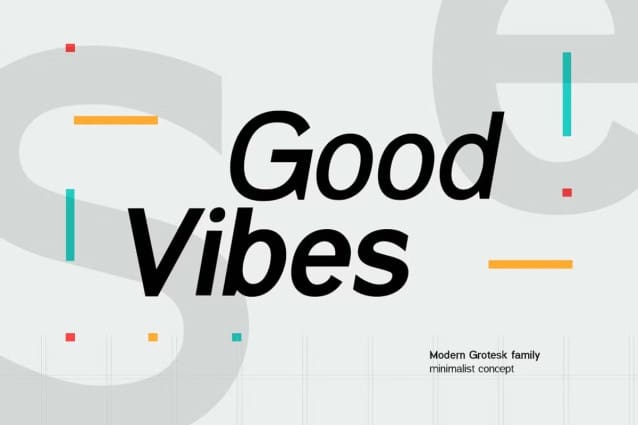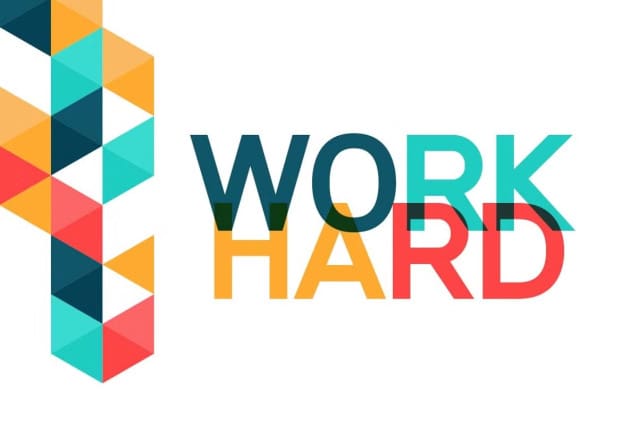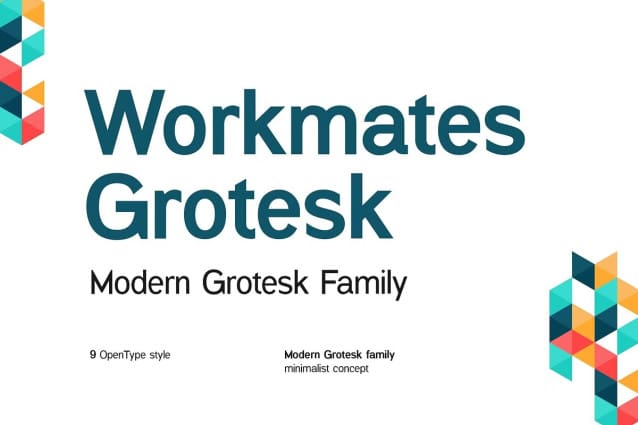
Workmates Grotesk Font Family
Workmates Grotesk Font Family – The modern display font feels beautiful classy, elegant, and stylish. This font is ideally suited for a wide variety of projects, such as signature, stationery, logo, wedding, typography quotes, magazine or book covers, website headers, branding, and more. Also, fashion-related branding or editorial design displays both masculine and feminine qualities.